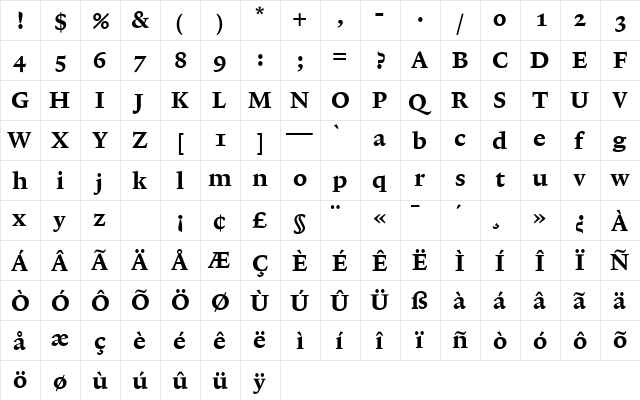
Lexicon No1 Roman D Med Font Preview
Lexicon No1 Roman D Med
Design Context for Lexicon No1 Typeface
Lexicon No1 is a composed and adaptable typeface that performs quietly and consistently across a wide range of design contexts.